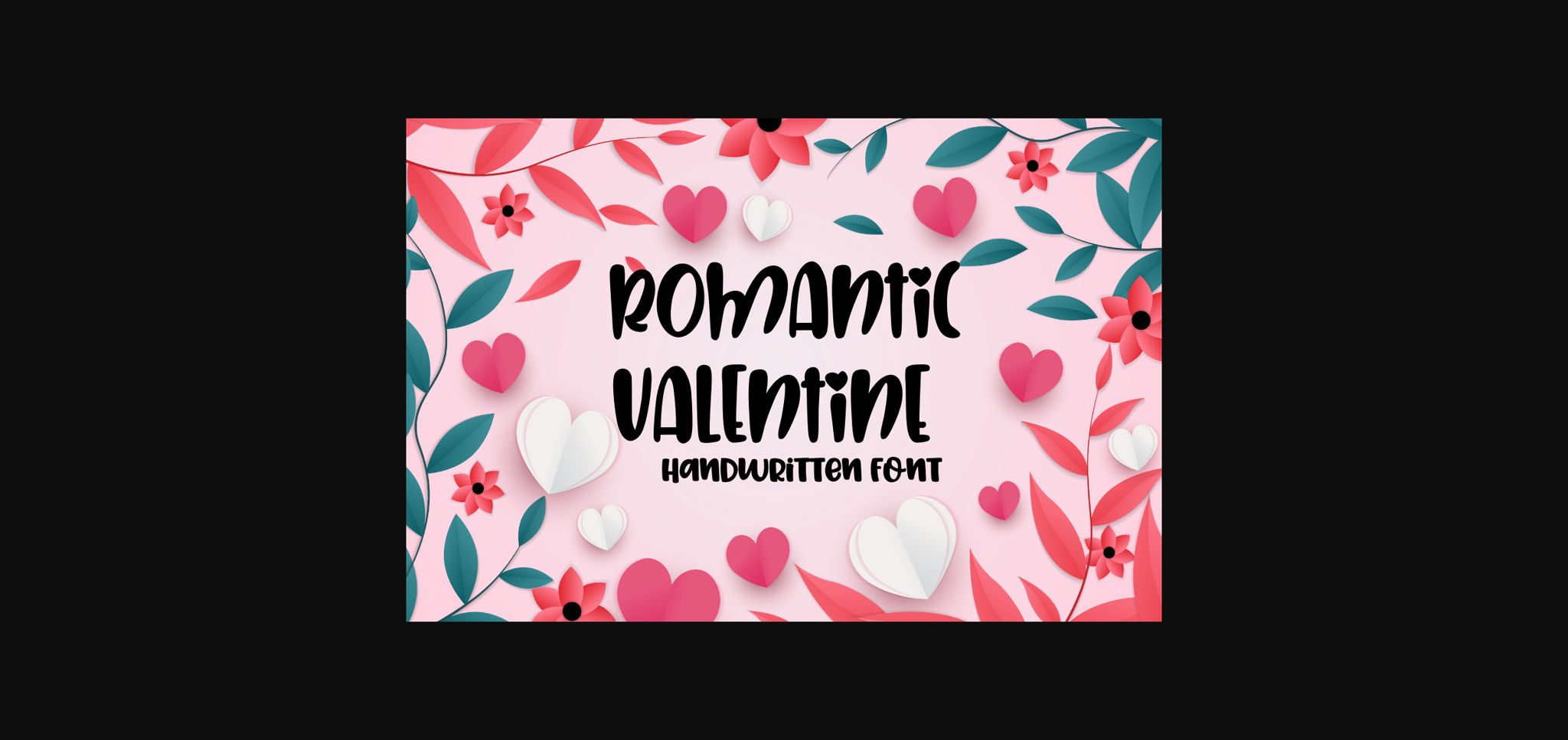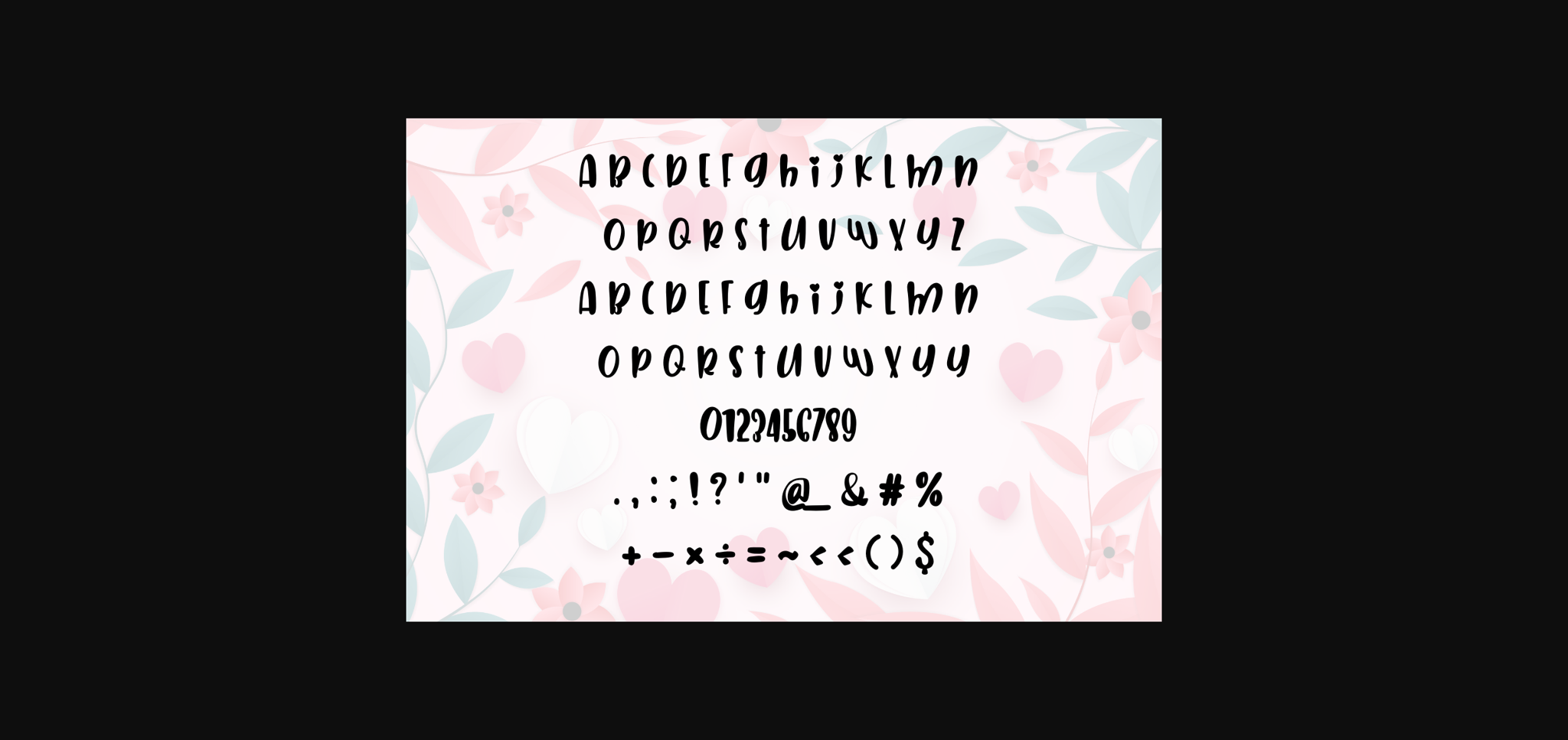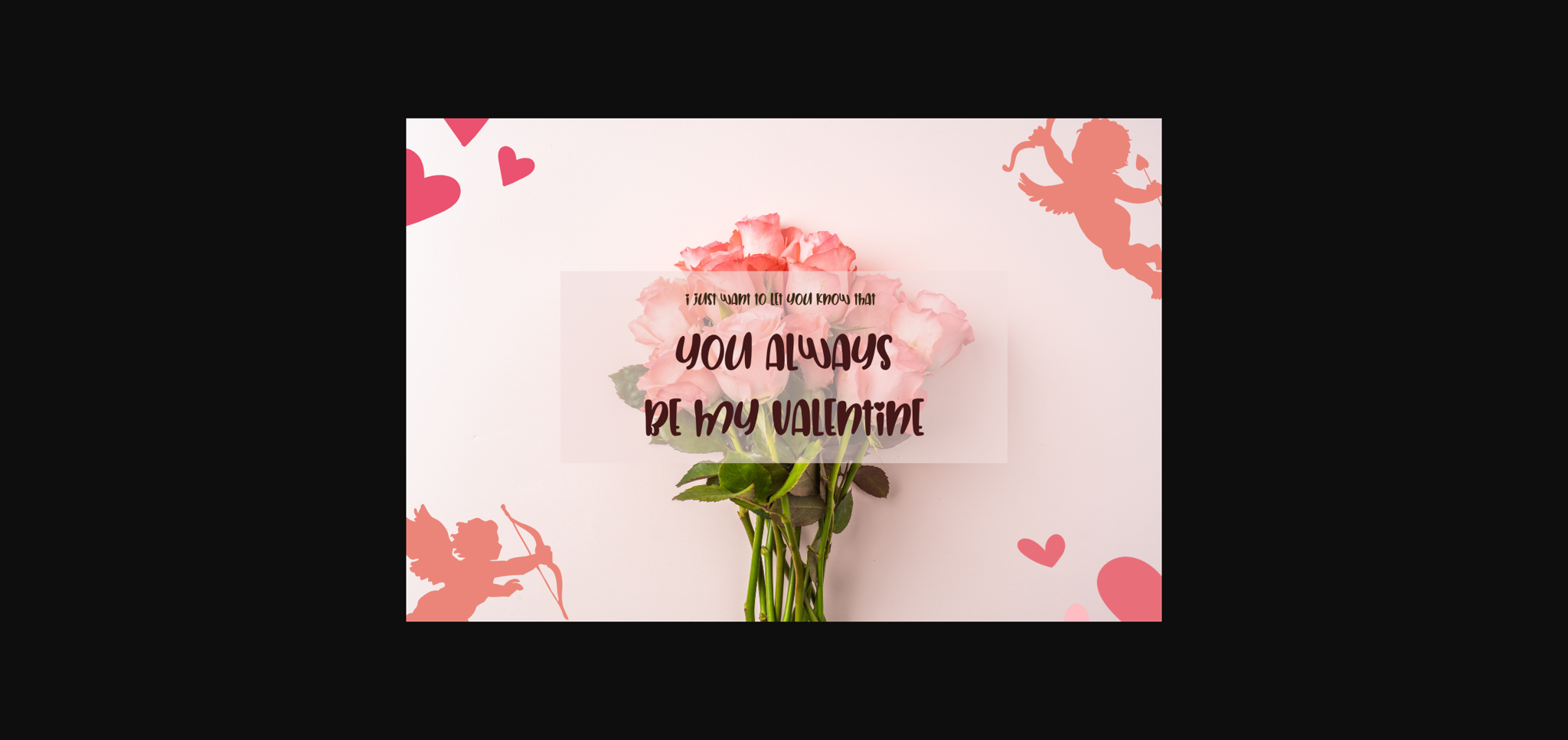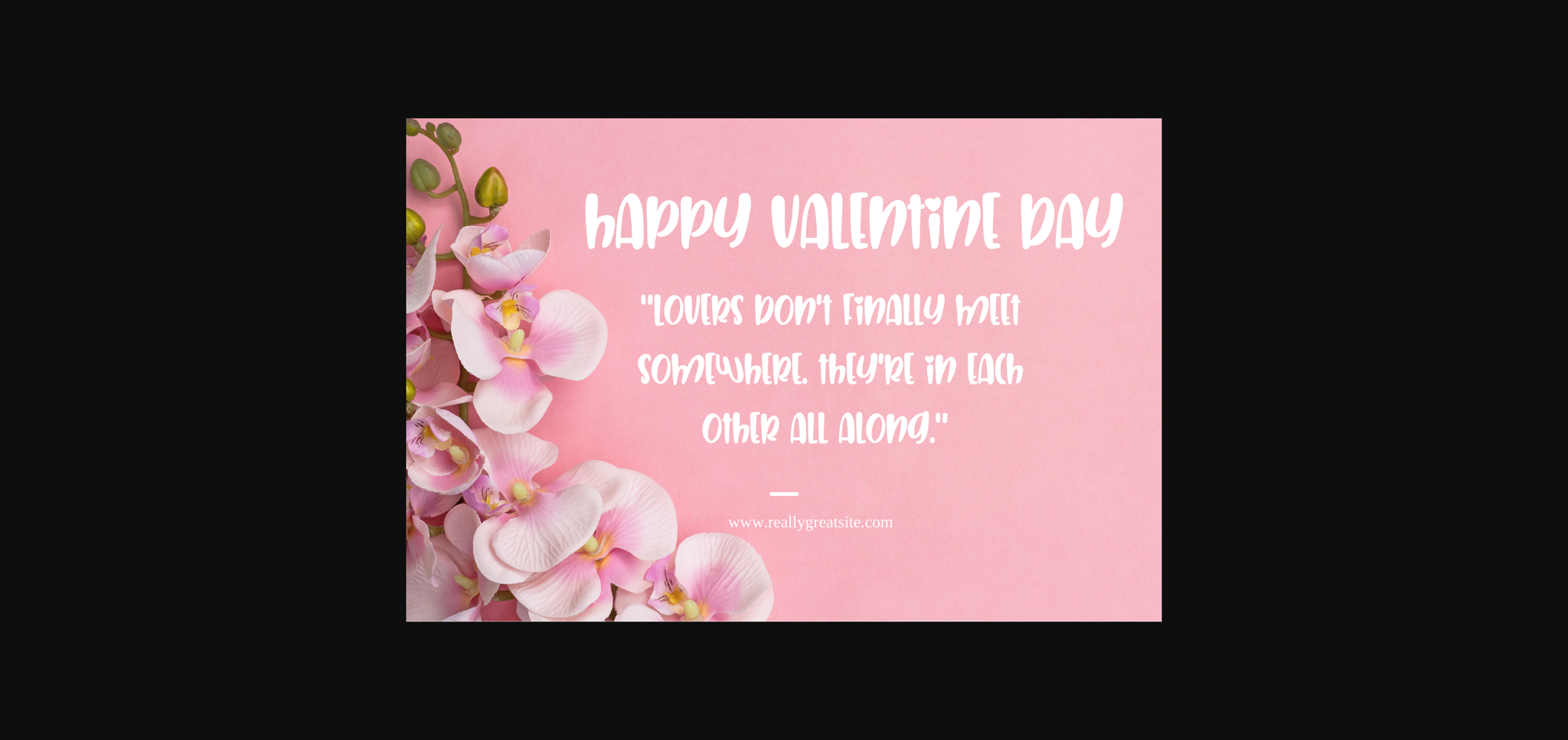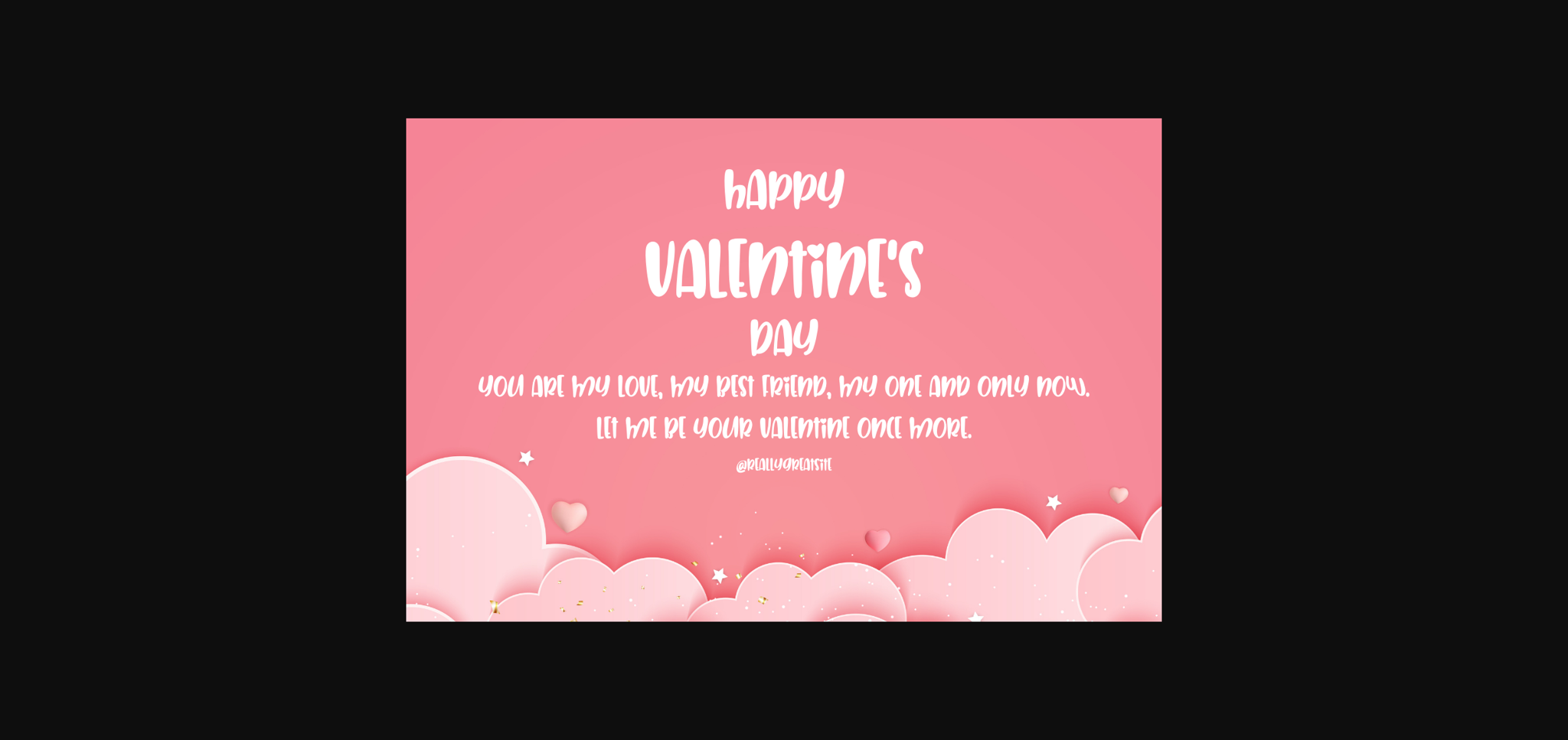
Romantic Valentine Font
About Romantic Valentine Font
Romantic Valentine is a cute and fun sans serif font. You can use it for taking notes, writing a diary, or making greeting cards. However, you can still use it for other designs, such as banners, content, mugs, cards, shirts, stationery, social media posts, and more!